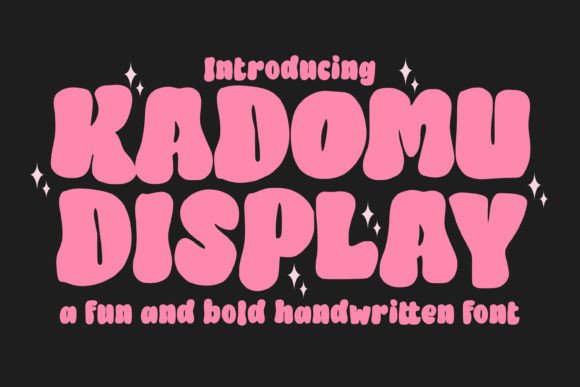
Introducing Kadomu Font, the ultimate choice for adding a touch of playfulness and creativity to your designs! Created by the talented Tebaltipis.std, this whimsical display font is specifically designed to inject a sense of fun into any project.
With its charming and handcrafted letterforms, Kadomu Font is the perfect companion for all your lighthearted endeavors. Whether you're working on children's book covers, party invitations, or any other creative masterpiece, this font will captivate your audience from the moment they lay eyes on it.
One of the most remarkable features of Kadomu Font is its unique and bouncy characters. These delightful elements bring a sense of joy and playfulness to your designs, instantly drawing attention and creating a memorable experience for your viewers. Imagine the smiles and excitement your creations will evoke!
But Kadomu Font is not just about aesthetics; it also offers the functionality you seek in a top-notch display font. Its versatility allows it to adapt effortlessly to various design styles and themes, making it a reliable choice for all your projects. Whether you're aiming for a vintage, retro, or modern look, Kadomu Font has got you covered.
Furthermore, this font is meticulously crafted to ensure optimal legibility, even in smaller sizes. Each letter is thoughtfully designed to maintain clarity and readability, guaranteeing that your message will be effectively conveyed to your audience.